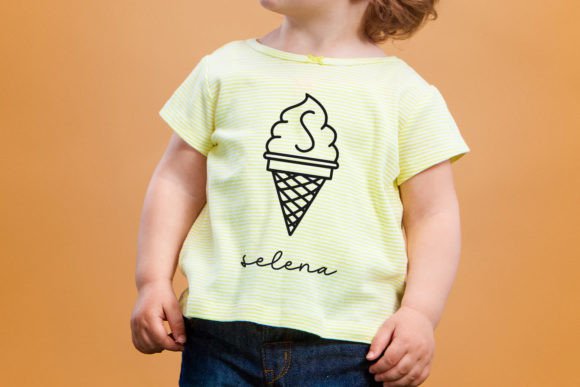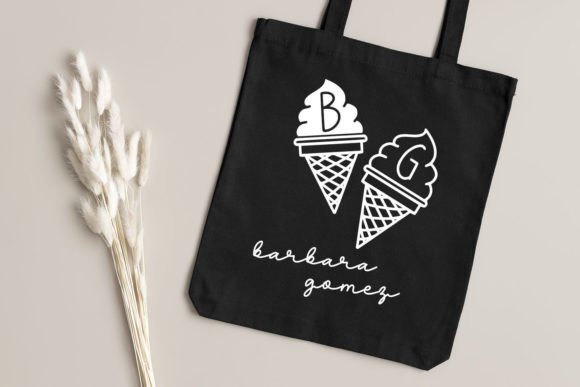
The Sweetest Monogram Font: A Deep Dive into ECIM
I still remember the design project that led me to discover the ECIM monogram font. I was working on a branding project for a new ice cream shop, and I needed a font that would capture the playful, fun vibe of the brand. After hours of searching, I stumbled upon ECIM, and it was love at first sight! The adorable ice cream cone design and cute monogram style instantly won me over. In this article, I’ll share my experience with ECIM, its features, and how to make the most of this charming font.
An Honest Review of ECIM
What I Love About ECIM ✨
- ✅ Adorable ice cream cone design that’s perfect for food-related brands or projects
- ✅ Cute monogram style that’s great for personalizing designs
- ✅ Highly versatile and can be used for various design projects, from logos to social media graphics
- ✅ Easy to read and works well in different sizes
- ⚠️ Limited character set, which may not be suitable for complex designs
- ⚠️ May not work well with very formal or traditional designs
The Designer Inspiration Behind ECIM
The ECIM font was inspired by the joy of ice cream and the playfulness of monogram design. The designer aimed to create a font that would capture the sweet, carefree spirit of summertime and the delight of personalized gifts. Whether you’re designing for a food brand, a craft project, or a personal gift, ECIM is sure to bring a smile to your face.
| Font Name | Ecim Monogram Font |
| What is ECIM? | ECIM is a monogram font with an adorable ice cream cone design. |
| What can I use ECIM for? | ECIM is great for branding, quotes, logos, t-shirt designs, tote bag designs, cards, banners, social media, and more. |
| Is ECIM easy to read? | Yes, ECIM is easy to read and works well in different sizes. |